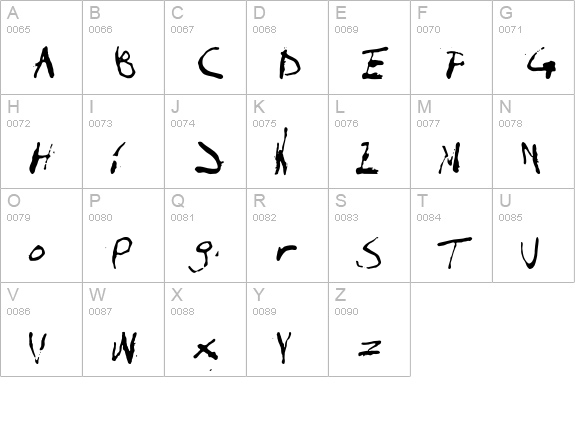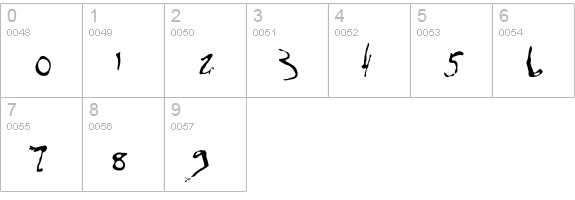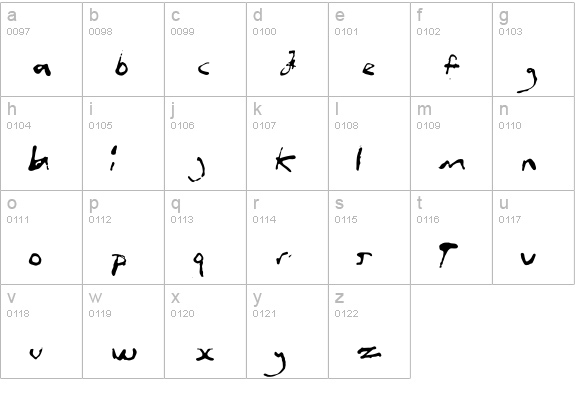
InXanthumGum Font Details
Introducing InXanthumGum font, a delightful and playful typeface that will inject a burst of creativity into your designs. With its unique blend of whimsical curves and bouncy letterforms, this font is perfect for adding a touch of fun and liveliness to any project. InXanthumGum font is not only visually captivating, but it also offers a sense of freedom and versatility. Whether you're designing a logo, crafting a poster, or creating eye-catching social media graphics, this font will effortlessly convey a sense of joy and vibrancy. One of the most exciting aspects of InXanthumGum font is that it is available for free! That's right, you can download this fantastic font at FontsMarket.com without spending a single dime. We believe in providing accessible tools for designers of all backgrounds, and InXanthumGum font is a testament to that commitment. This font's playful nature is accentuated by its wide range of alternate characters and ligatures, allowing you to experiment and create endless combinations that truly reflect your unique style. From its quirky lowercase letters to its energetic uppercase forms, InXanthumGum font is a versatile typeface that offers endless possibilities for your design projects. With its bold and vibrant personality, InXanthumGum font will bring an instant dose of cheerfulness to any design. Whether you're working on a children's book, a whimsical brand identity, or an invitation for a fun-filled event, this font is guaranteed to make a lasting impression. So why wait? Download InXanthumGum font today from FontsMarket.com and let your creativity soar. With its free availability and captivating design, this font is a must-have for any designer looking to add a touch of playfulness and charm to their work. Embrace the freedom to create and let InXanthumGum font be your creative partner.